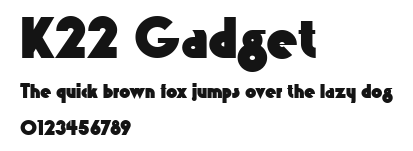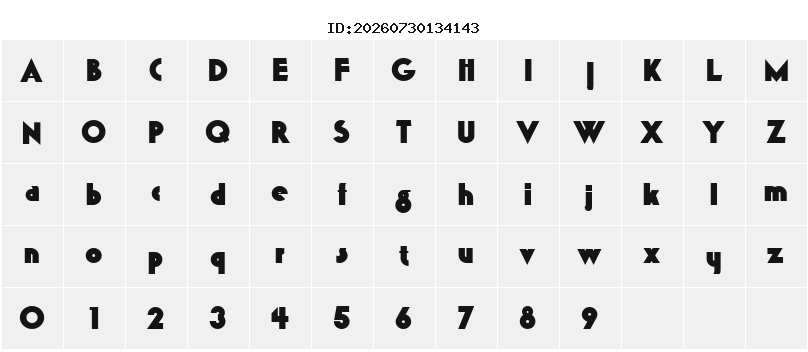
• Font Name: K22 Gadget
• Designer: Peter Bennett
• Manufacturer: Toto
About K22 Gadget.ttf
K22 Gadget.ttf is a modern, elegant sans-serif font designed for ultimate readability and visual harmony. Perfect for branding, headlines, web design, and print materials.